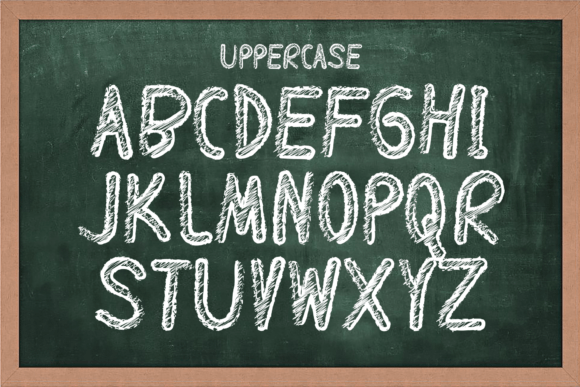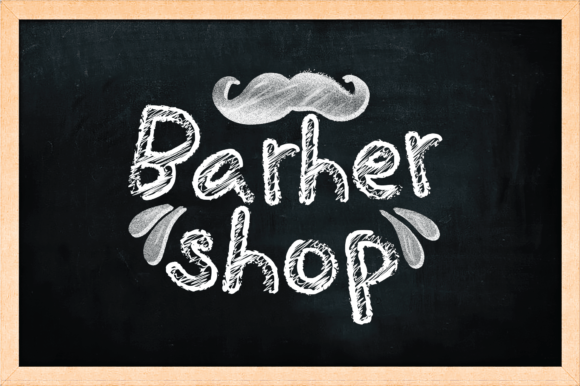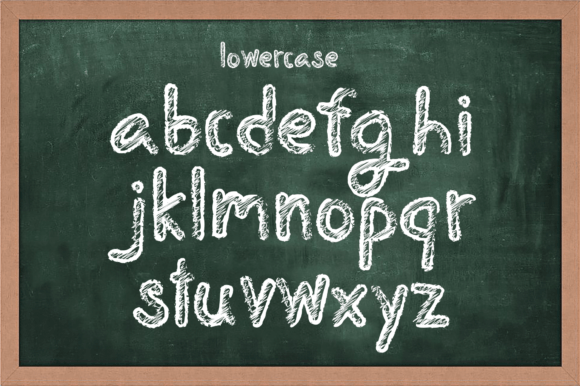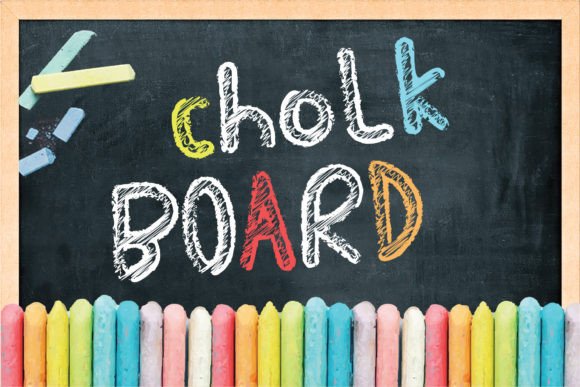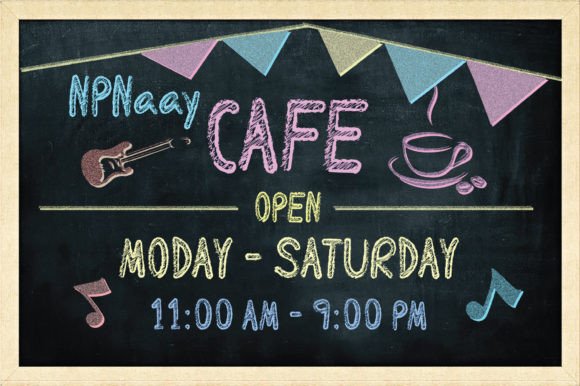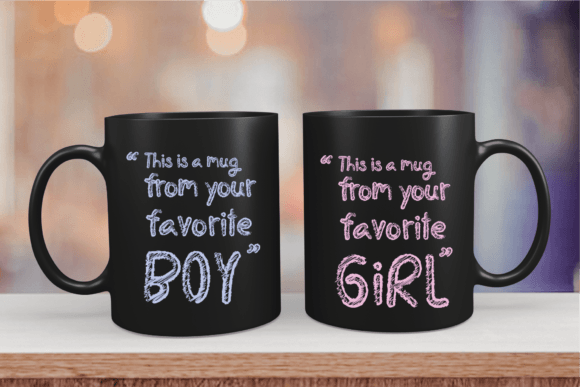
Chalkboard Font: The Ultimate Guide to a Cute and Friendly Handwritten Font
Are you tired of using the same old fonts in your designs? Look no further than the Chalkboard Font! This adorable handwritten font is perfect for grabbing attention and adding a touch of personality to your projects. Whether you’re a designer, crafter, or simply someone who loves to get creative, Chalkboard Font is sure to become your new favorite go-to font.
What is Chalkboard Font?
Chalkboard Font is a digital font that mimics the look of handwritten chalkboard writing. It’s a sans-serif font with a friendly and approachable feel, making it perfect for a wide range of design projects. The font features bold lines, playful letterforms, and a dash of whimsy, giving it a unique and charming personality.
Why Use Chalkboard Font?
So why should you use Chalkboard Font in your designs? Here are just a few reasons:
- Attention-grabbing: Chalkboard Font is designed to grab attention and draw the eye. Its bold lines and playful letterforms make it perfect for headlines, titles, and other design elements that need to stand out.
- Versatile: Chalkboard Font is incredibly versatile, making it suitable for a wide range of design projects. Use it for crafts, digital design, presentations, greeting cards, and more!
- Easy to read: Despite its playful look, Chalkboard Font is surprisingly easy to read, making it perfect for body text as well as headlines.
- Customizable: Chalkboard Font comes in a range of styles and weights, allowing you to customize it to suit your design needs.
Uses for Chalkboard Font
So what can you use Chalkboard Font for? The possibilities are endless! Here are a few ideas to get you started:
- Crafts: Chalkboard Font is perfect for craft projects like scrapbooking, card making, and DIY signs.
- Digital design: Use Chalkboard Font in your digital designs, such as social media graphics, blog posts, and email newsletters.
- Presentations: Add a touch of personality to your presentations with Chalkboard Font.
- Greeting cards: Create custom greeting cards for special occasions with Chalkboard Font.
- Signs and posters: Use Chalkboard Font for eye-catching signs and posters.
Tips for Using Chalkboard Font
Here are a few tips for getting the most out of Chalkboard Font:
- Use it sparingly: While Chalkboard Font is attention-grabbing, it can be overwhelming if overused. Use it sparingly to add emphasis and personality to your designs.
- Pair it with other fonts: Chalkboard Font pairs well with a range of other fonts, including sans-serif fonts like Arial and Helvetica.
- Experiment with colors: Chalkboard Font looks great in a range of colors, from bold and bright to soft and pastel.
| Font Name | Chalkboard Font |
| Author | NPNaay |
In conclusion, Chalkboard Font is a versatile and charming handwritten font that’s perfect for designers, crafters, and anyone who loves to get creative. Its attention-grabbing design, versatility, and ease of use make it a great addition to any design project. So why not give Chalkboard Font a try? You might just find that it becomes your new favorite go-to font!
Whether you’re a seasoned designer or just starting out, Chalkboard Font is sure to inspire your creativity and add a touch of personality to your designs. So go ahead, get creative, and see what amazing things you can create with Chalkboard Font!